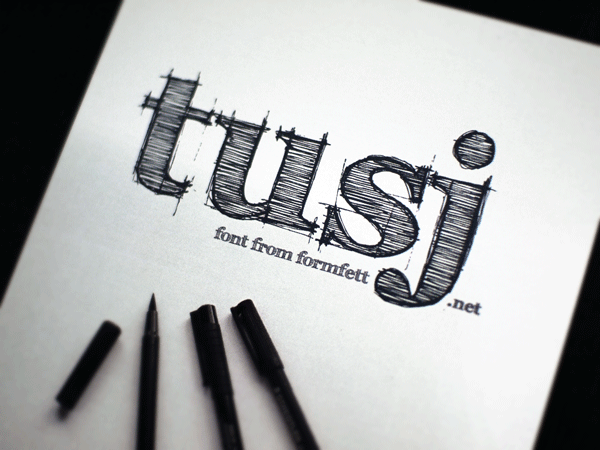
Font name: | FFF Tusj |
Author: | Magnus Cederholm |
Handwritten version of Georgia. Works best in very large letters. Free for personal and commercial use. Donations are appreciated :) |